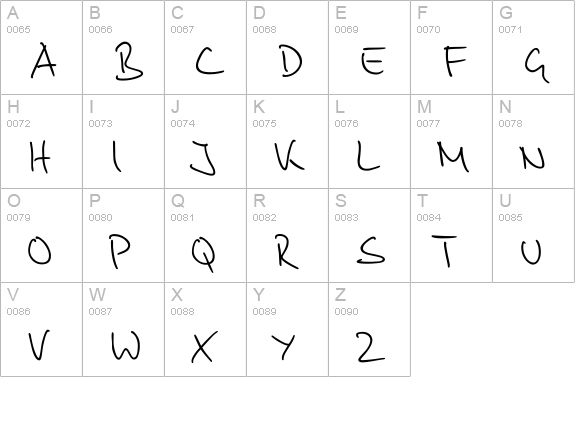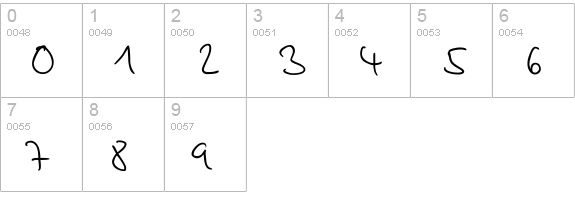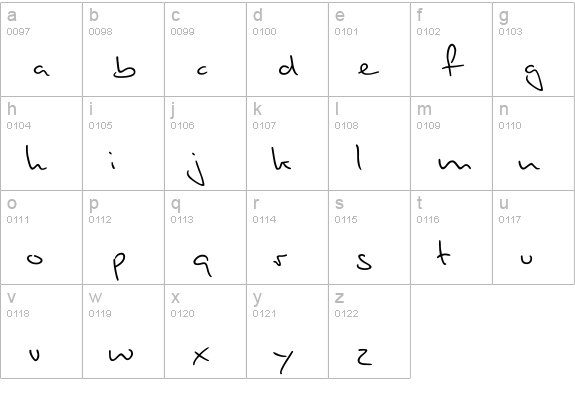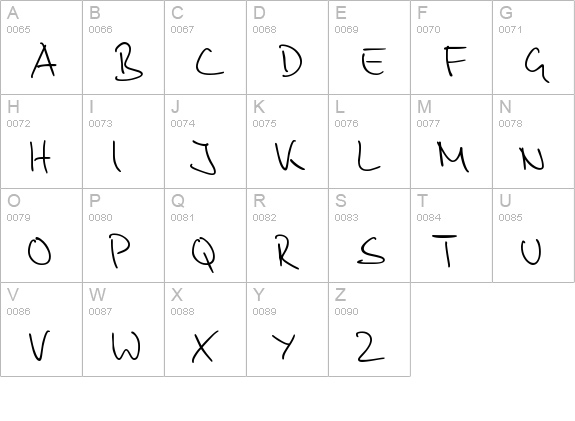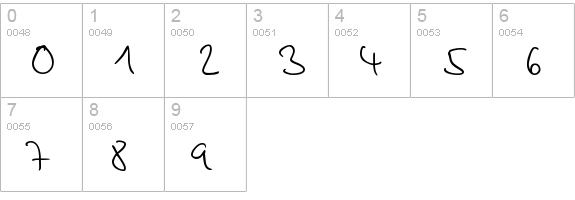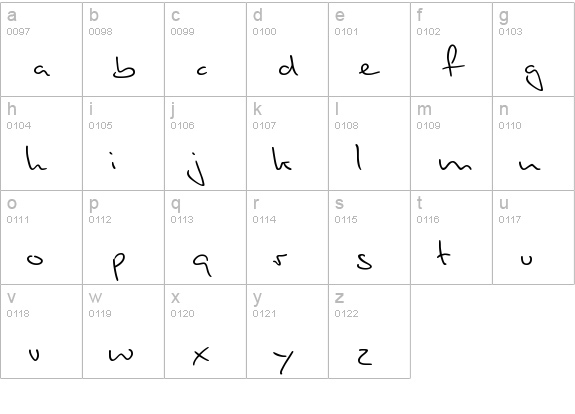
PT Script Fog Font Details
PT Script Fog font is a elegant and sophisticated script font that exudes charm and grace. With its delicate curves and graceful strokes, this font is perfect for adding a touch of elegance to your projects. Whether you're designing wedding invitations, greeting cards, or branding materials, PT Script Fog font will bring a sense of refinement to your work. What's even better is that PT Script Fog font is completely free to download at FontsMarket.com. So you can add this stunning font to your collection without any cost. Don't miss out on the opportunity to elevate your designs with the timeless beauty of PT Script Fog font. Download it today and let your creativity shine!